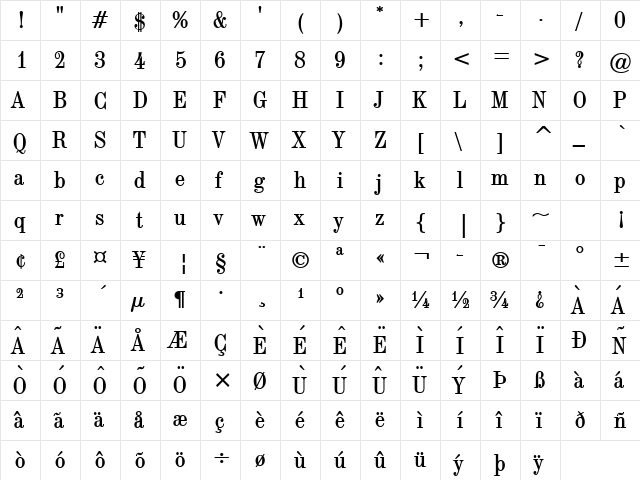
Indy 17 Bold
Design Context for Indy 17 Typeface
Indy 17 takes a measured approach to typography — its balanced proportions and neutral character make it a reliable workhorse for both digital and print work. The heavy weight commands attention and anchors typographic hierarchies.